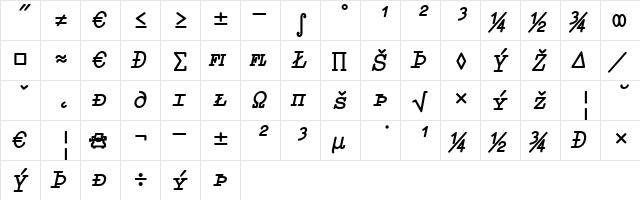
Elementa SC-Expert ItalicBold Font Preview
| Style | ItalicBold |
| Foundry | Mindaugas Strockis, . Published by FontShop International. FontFont Release |
Design Context for Elementa SC-Expert Typeface
Elementa SC-Expert offers clean, dependable letterforms without strong stylistic allegiance, making it a practical choice for designers who need flexibility. Its italic angle brings a sense of urgency and motion to the letterforms. The heavy weight commands attention and anchors typographic hierarchies.
Pro Tip: Try Elementa SC-Expert for annotation and caption copy alongside an upright companion — the contrast in angle creates a dynamic but ordered typographic system.